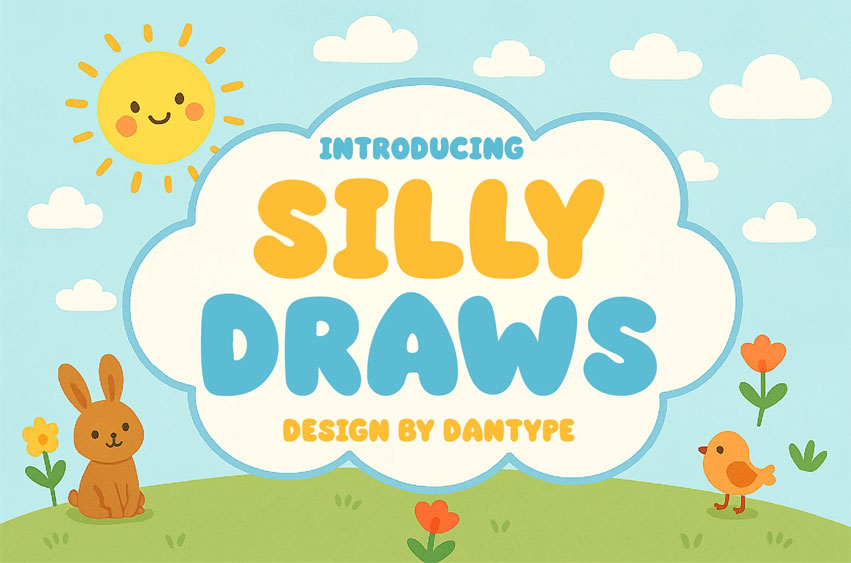
Silly Draws Font
Silly Draws Font is a cheerful and playful display font designed to bring fun, joy, and creativity into your projects. With its rounded shapes and cute, handmade style, this font is perfect for kids’ books, posters, toys, birthday invitations, and any design that needs a happy and friendly vibe.
It combines simplicity and charm to capture the imagination of children and adults alike. Whether used for branding, packaging, or educational materials, Silly Draws adds a touch of warmth and positivity to every design.